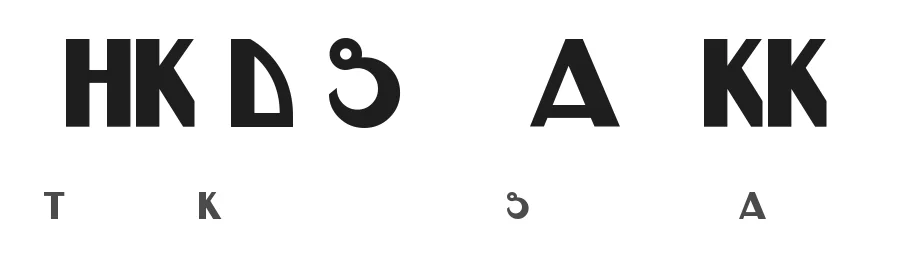
About Obese & Square KK Font
Obese & Square, the name says it all. A minimalist fatty made with as few basic elements as possible. Fit for titling that needs that 'De Stijl' feeling. Capitals,numbers and small capitals only. Only very basic punctuation, no kerning. Maybe later if there are enough requests.
| Designer | koeiekat |
Obese & Square KK Font is a decorative font that shines as a display or heading face. Pair it with a clean sans-serif or serif font for body text β the contrast creates a clear hierarchy while the two styles stay balanced and easy to read.
Obese & Square KK Font
by koeiekat